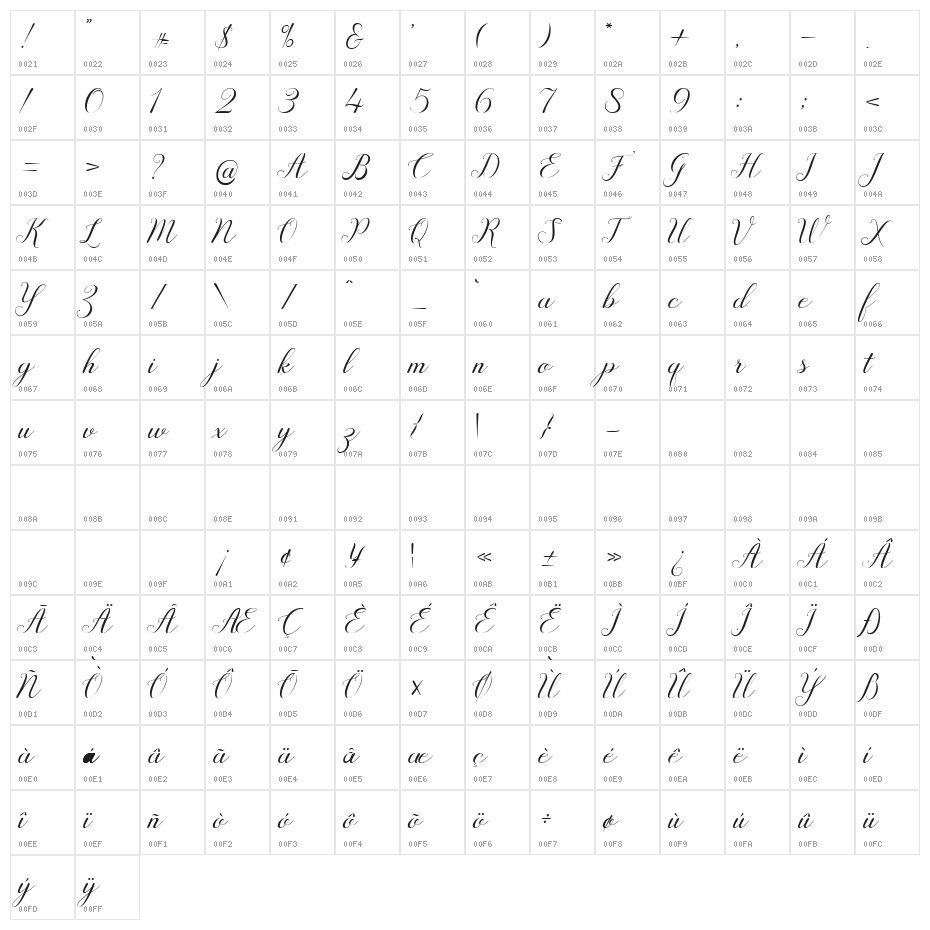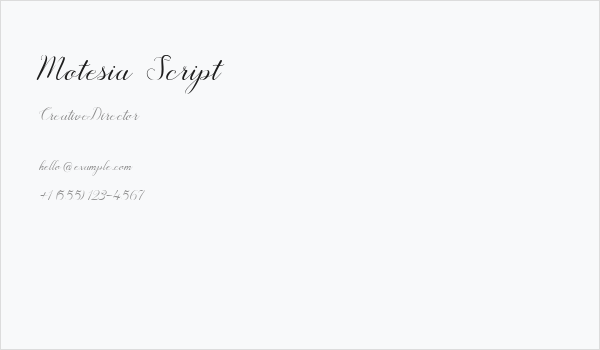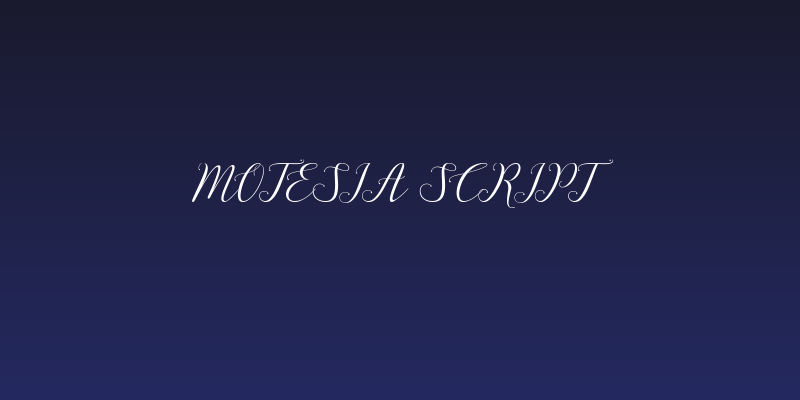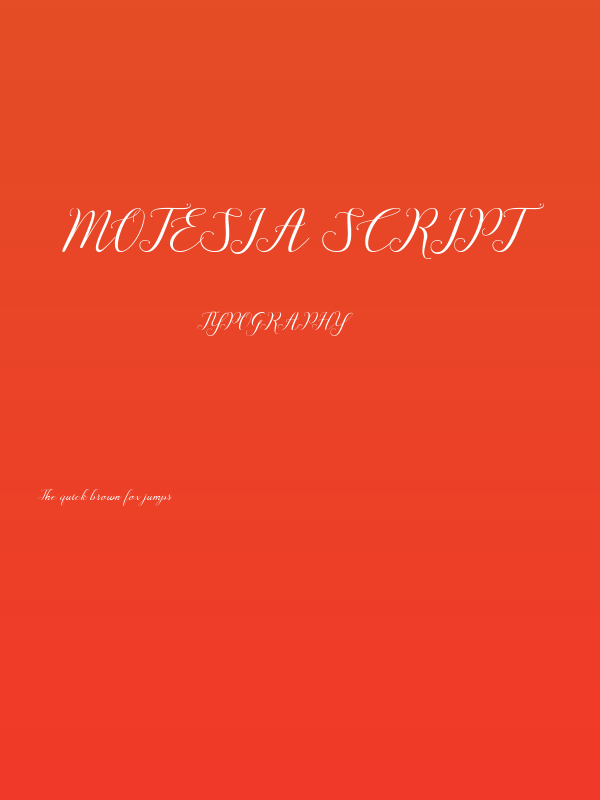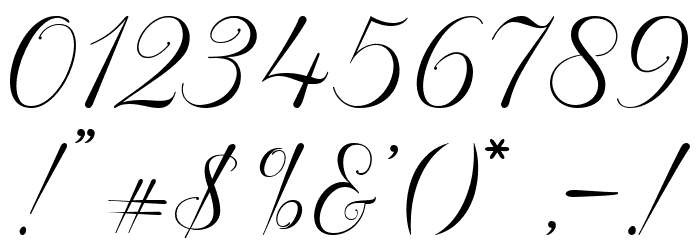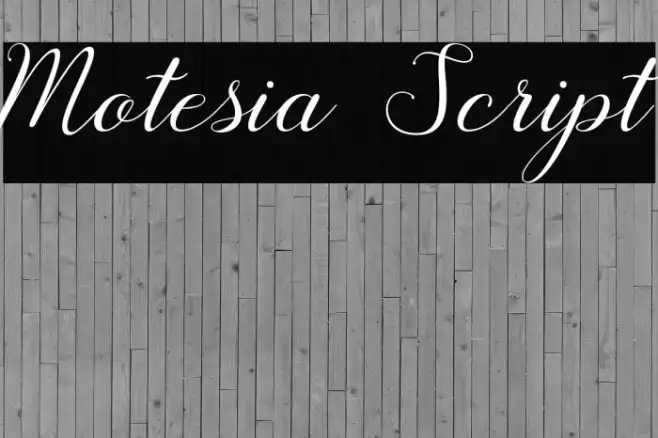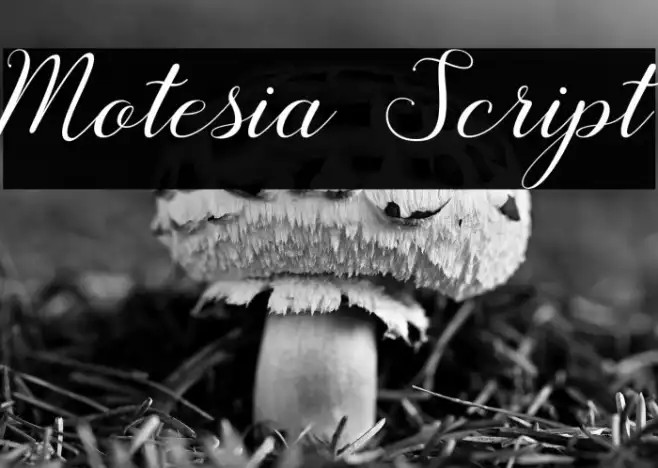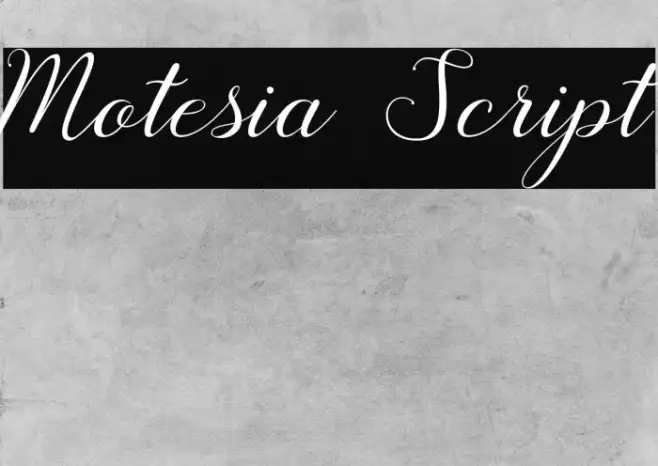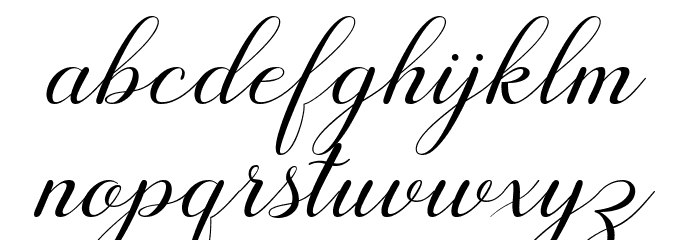
Motesia Script Font
Motesia Script Description
This elegant script font features flowing, interconnected letters with a classic and sophisticated appearance. The uppercase letters are adorned with graceful swashes and flourishes, adding a touch of luxury and refinement. The lowercase letters maintain a smooth, cursive style that complements the uppercase characters beautifully. The numerals and special characters are designed with the same attention to detail, ensuring a cohesive look throughout. The font's delicate strokes and high contrast between thick and thin lines create a sense of movement and fluidity, making it ideal for formal and decorative applications.
| Proposed Projects | Ideal for wedding invitations, elegant branding, luxury product packaging, and decorative signage. |